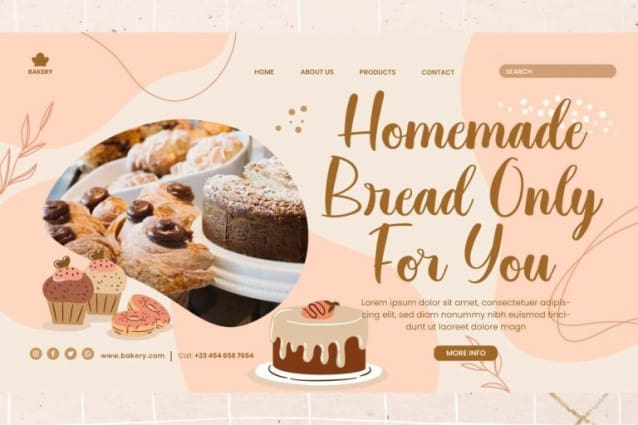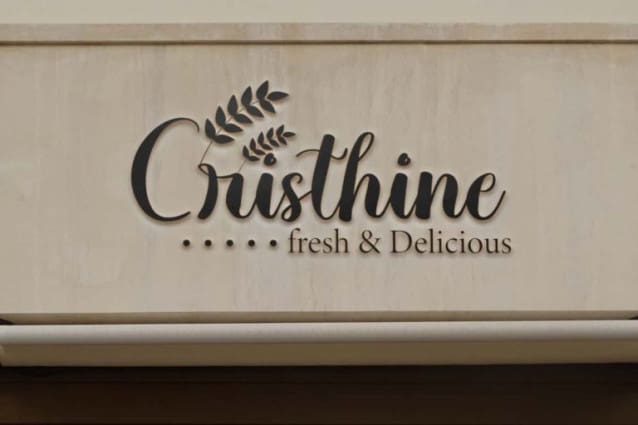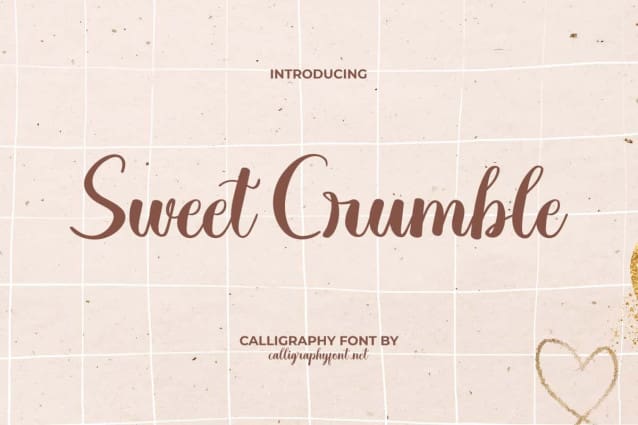
Sweet Crumble Font
Sweet Crumble Font is a sweet beautiful calligraphy font with romantic theme. It has classic and premium feel handcrafted script calligraphy font to add a splash of creativity to a project with the addition of beautiful ligature characters, you can create a font look that feels personal. Use Use this typeface for brochure, invitation, menu, mockup design, packaging design, quotes, signage, stationery, title, website and much more.
Sweet Crumble Font is a casual script font that carries a sweet modern calligraphy feel made by hand. Can be used as main text or in combination with other types of fonts, making it easy to use both formal and non-formal. This font is great for bakery, cafeteria, event organizer, graphic design, handicraft, jewelry, pastry shop, photography, restaurant, and more.